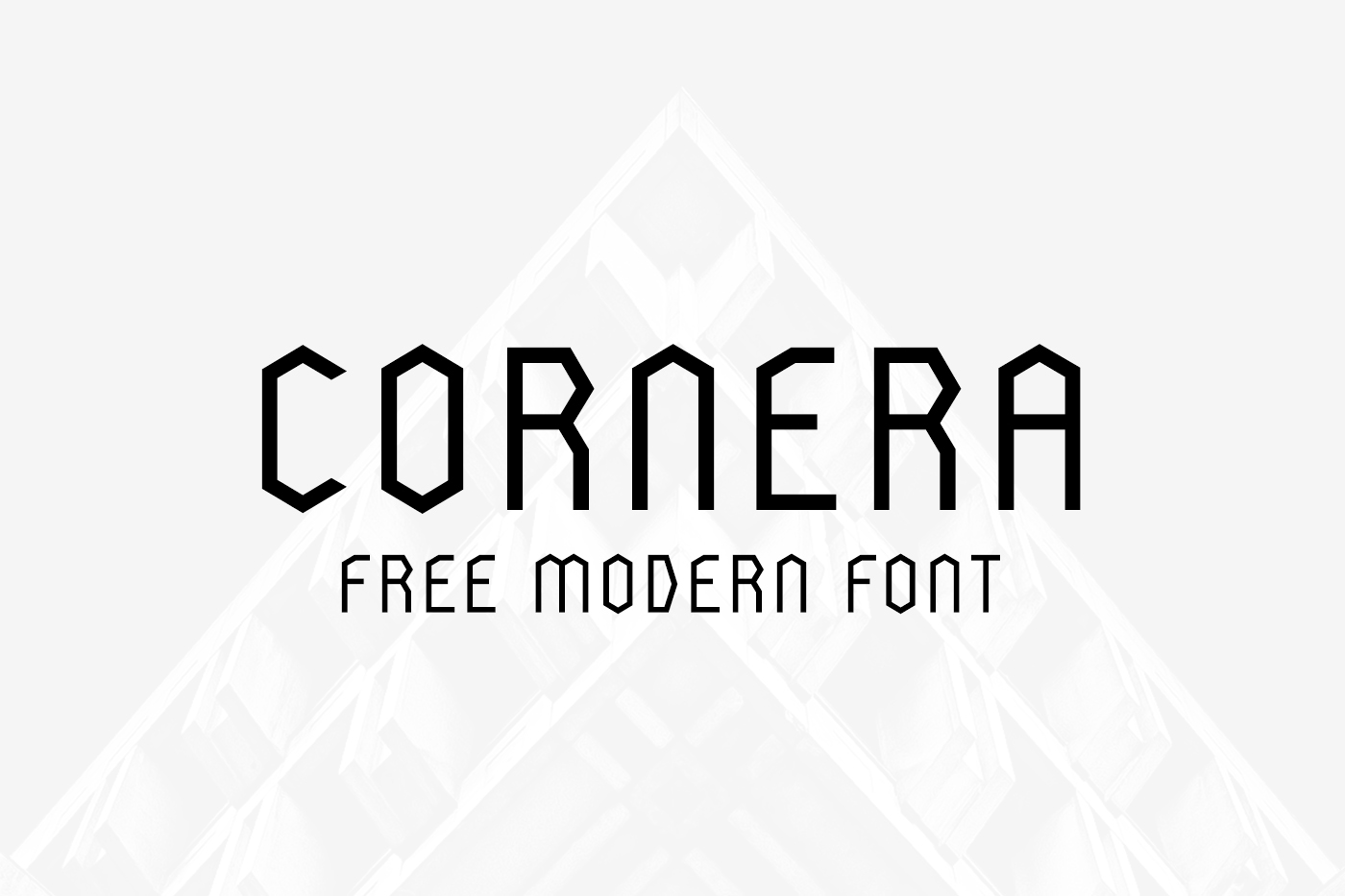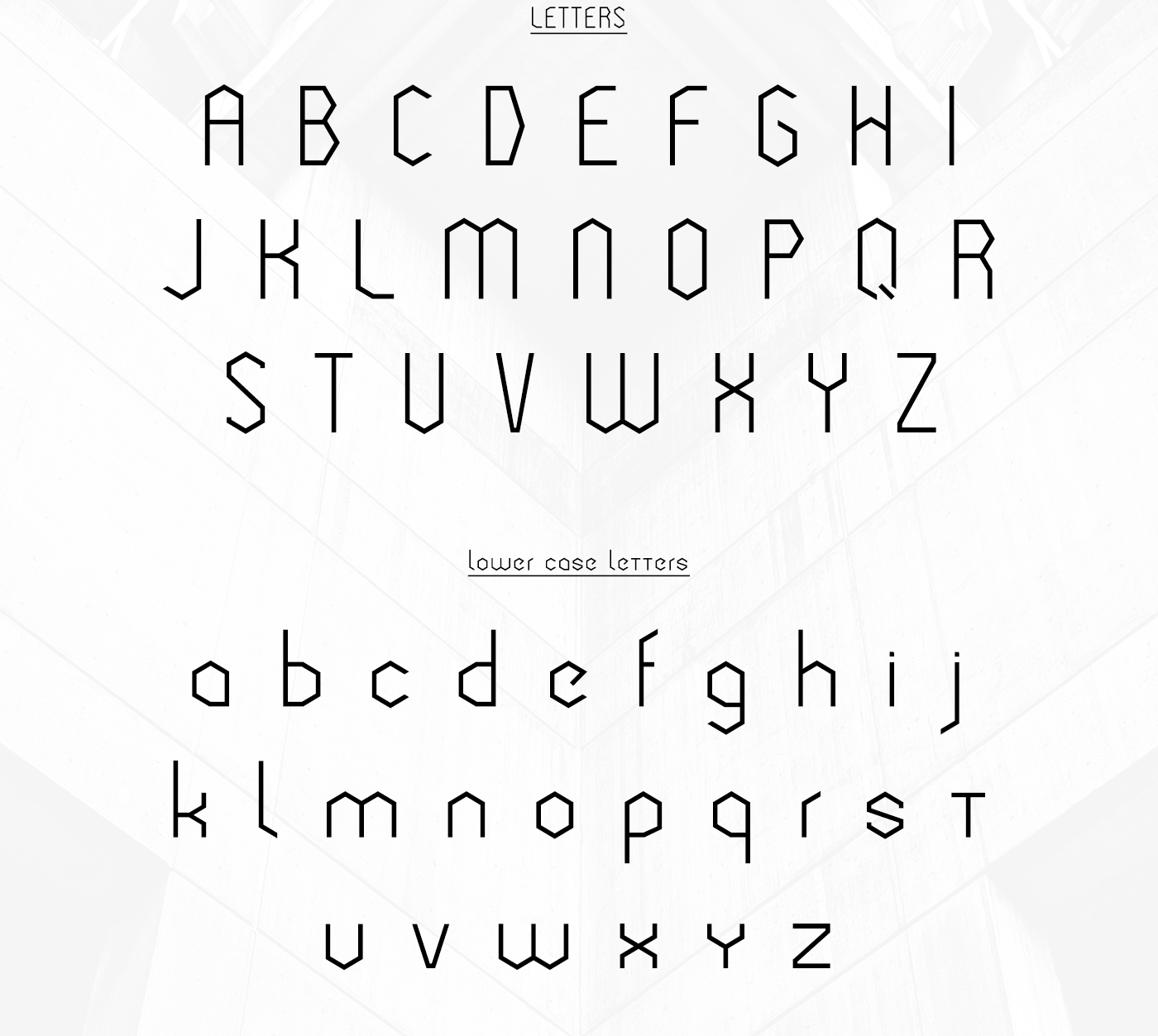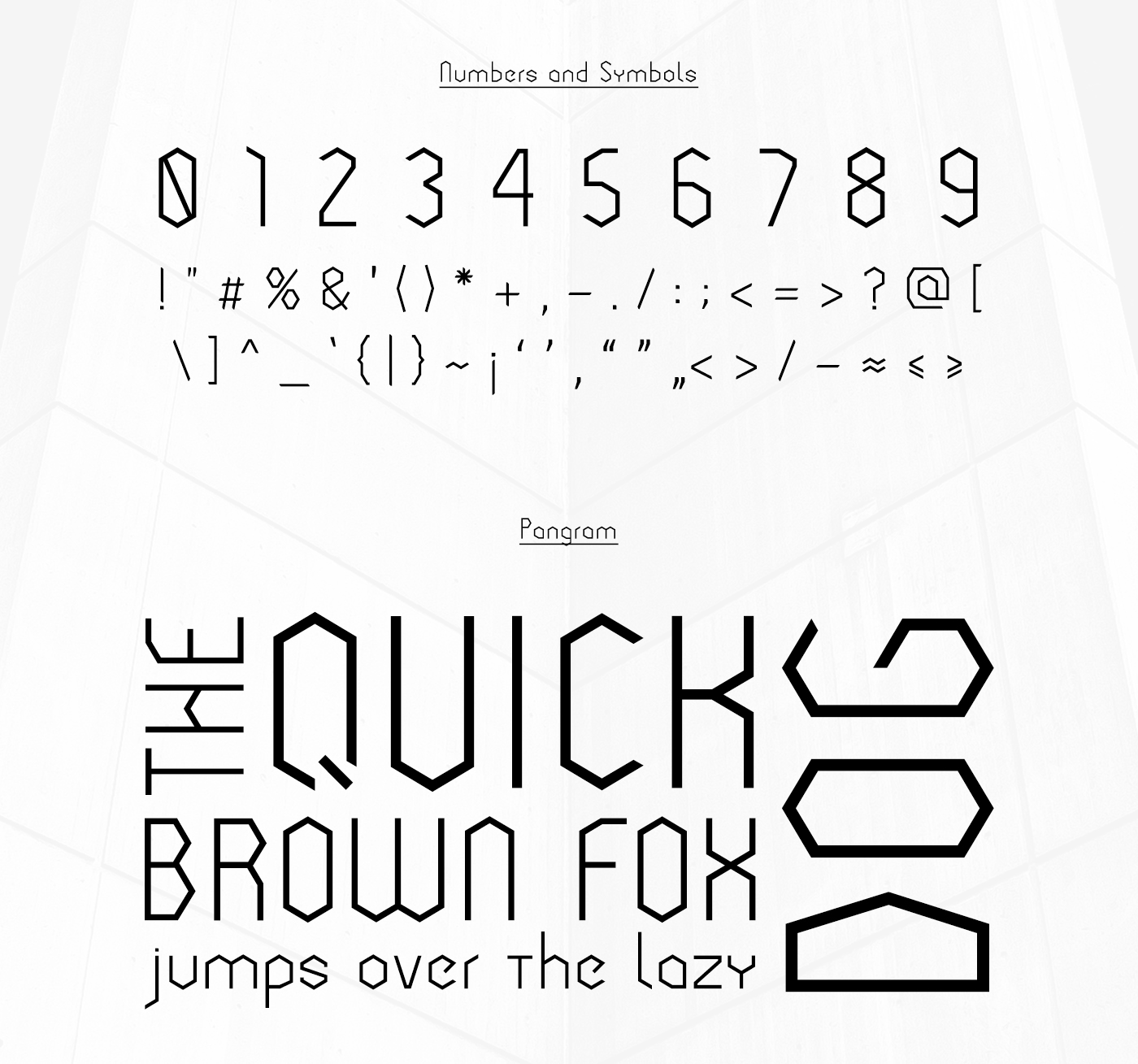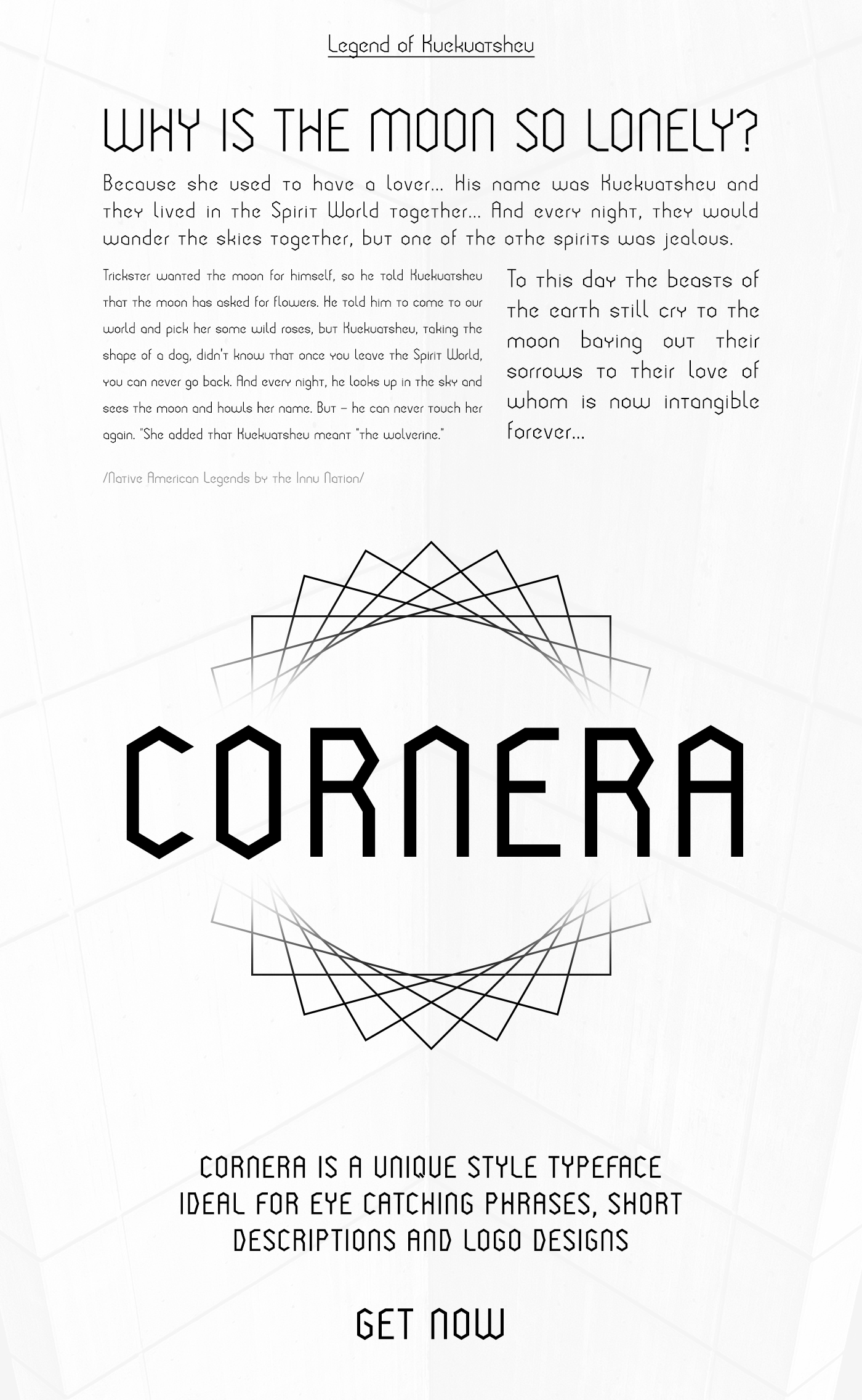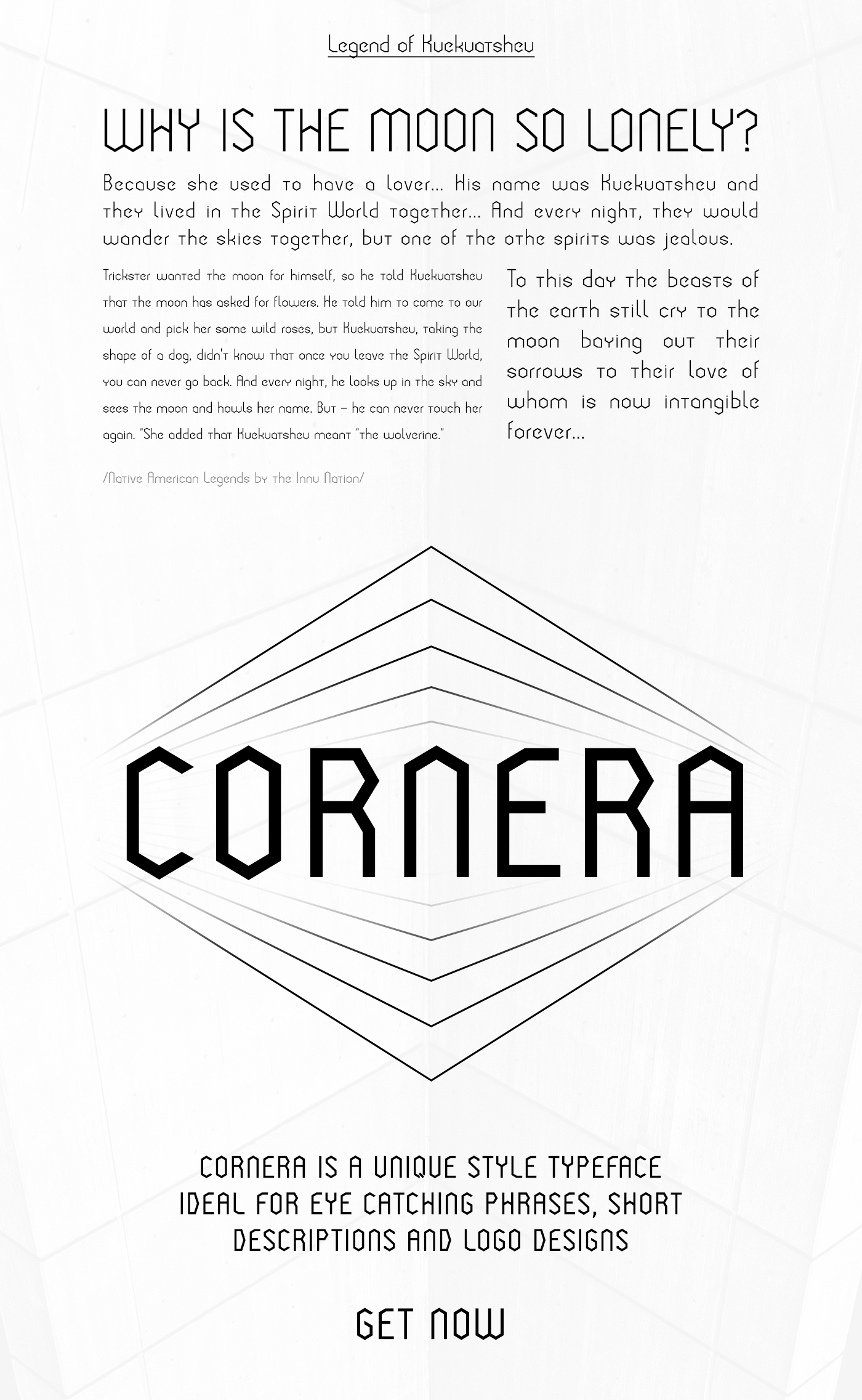
Designed by Gatis Vilaks from Riga, Latvia, Cornera is a unique style typeface, ideal for eye catching designs. Download Cornera for free and use it for logos, phrases or short descriptions!